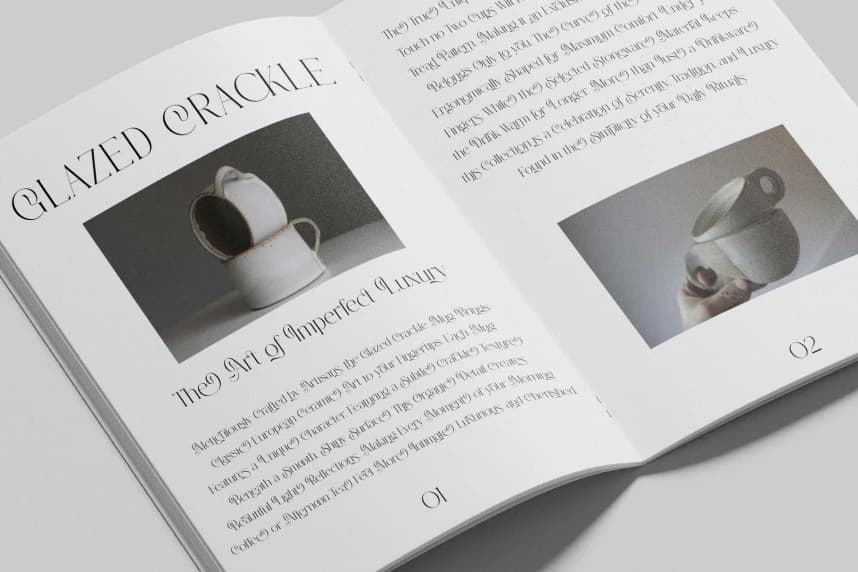
Solguse Font
Solguse Font, a breathtaking luxury serif typeface. Perfectly striking a balance between classical Roman elegance and avant-garde fluidity, this magnificent display font turns editorial headers into works of pure fine art.